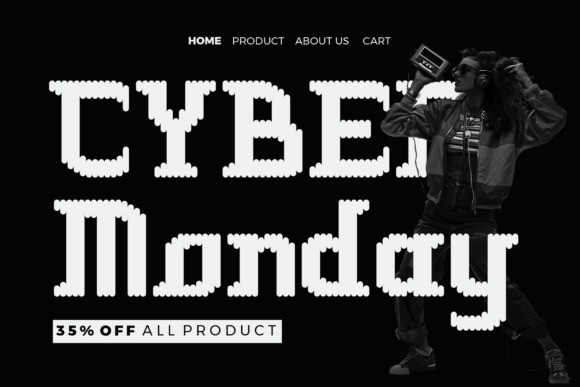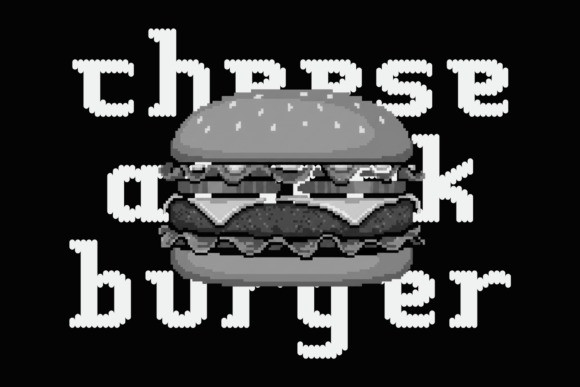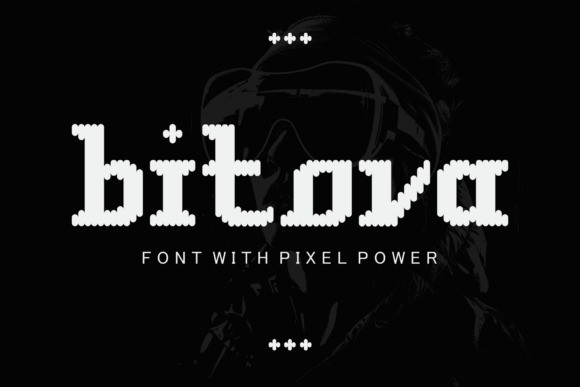
Bitova Font
Bitova Font Drawing inspiration from the primitive charm of bitmap graphics and iconic 8-bit typography, this typeface brings a refreshing edge to the archetypal pixel aesthetic. Each character, composed of softened pixel dots, shoulders an inimitable balance of tenderness and edginess, placing Bitlova in a league of its own. Raise the waves of playfulness, nostalgia, and compelling visual impact, making it the ultimate graphical accent to those seeking a daring, tech-infused retro feel.
Unlike its traditional pixel counterparts known for their hard-edged contours, Bitlova nestles in a framework of dotted pixels. These add an element of smooth rhythm to the letterforms, boosting readability and infusing a genial, expressive touch. While synonymous with vintage gaming, CRT appeal, and early digital devices, Bitlova fits seamlessly in the modern design landscape.
Equipped with uppercase and lowercase characters, numbers, punctuations, and multilingual support, versatility is at the heart of Bitlova. It becomes a visual highlight across different display typography applications, sliding effortlessly from digital canvases to print masterpieces. With Bitlova emblazoned across your branding, posters, gaming illustrations, streaming content, or merchandise, it asserts a notable retro-rooted identity that’s impossible to overlook.
The architecture of each Bitlova letter pays homage to classical pixel fonts, but with an added spark of artistry and modern sophistication. Its circular pixel dots build a mesmerising texture, blurring the lines between the ornamental and the typographic. It becomes a definitive visual voice when adorned on sizeable titles and expressive headline compilations, as the pixel texture becomes the heart of the artwork.